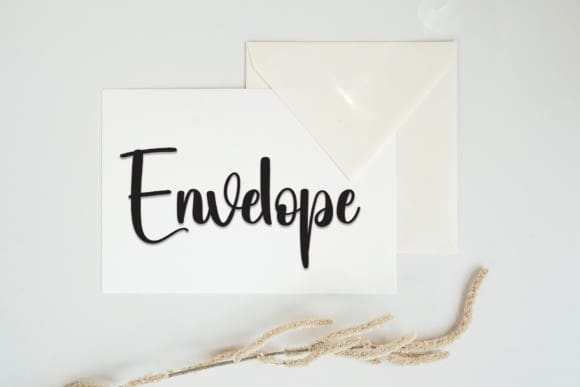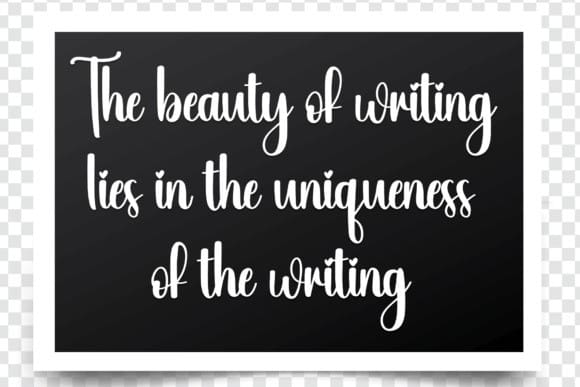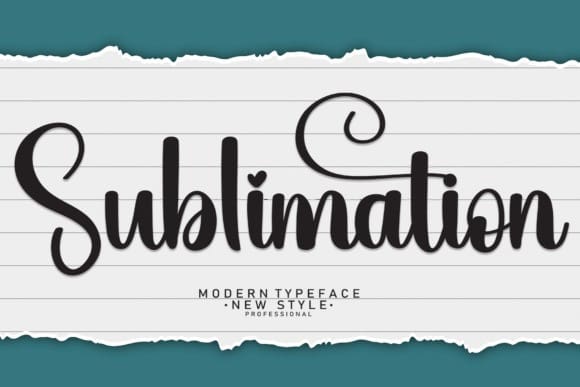
Sublimation Script Typeface
Sublimation Script Typeface, is a unique and elegant handwritten font. It looks beautiful on a variety of designs requiring a personalized style, such as wedding invitations, thank you cards, greeting cards, logos, and so on.